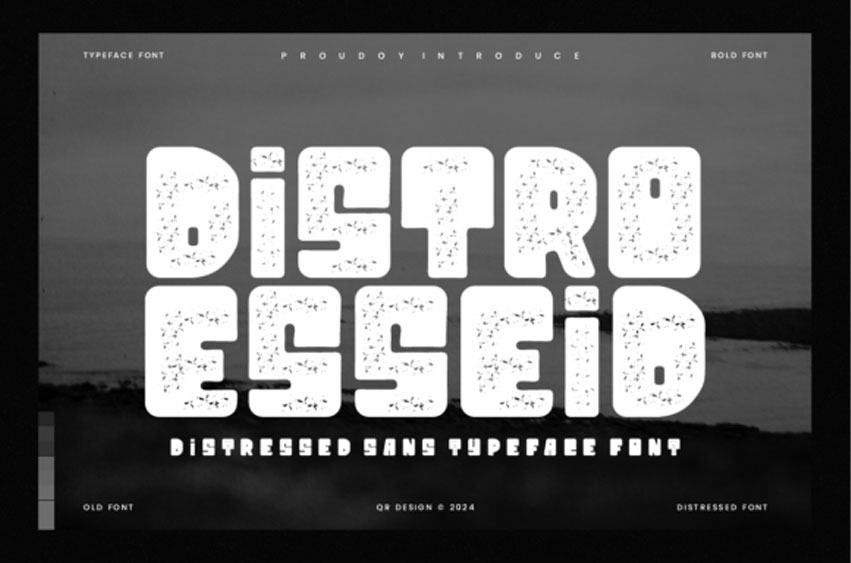
Distro Esseid Font is a bold, modern sans serif font with clean lines and strong geometric shapes.
Its contemporary style makes it perfect for logos, headlines, branding, and projects that demand a confident, eye-catching typeface.